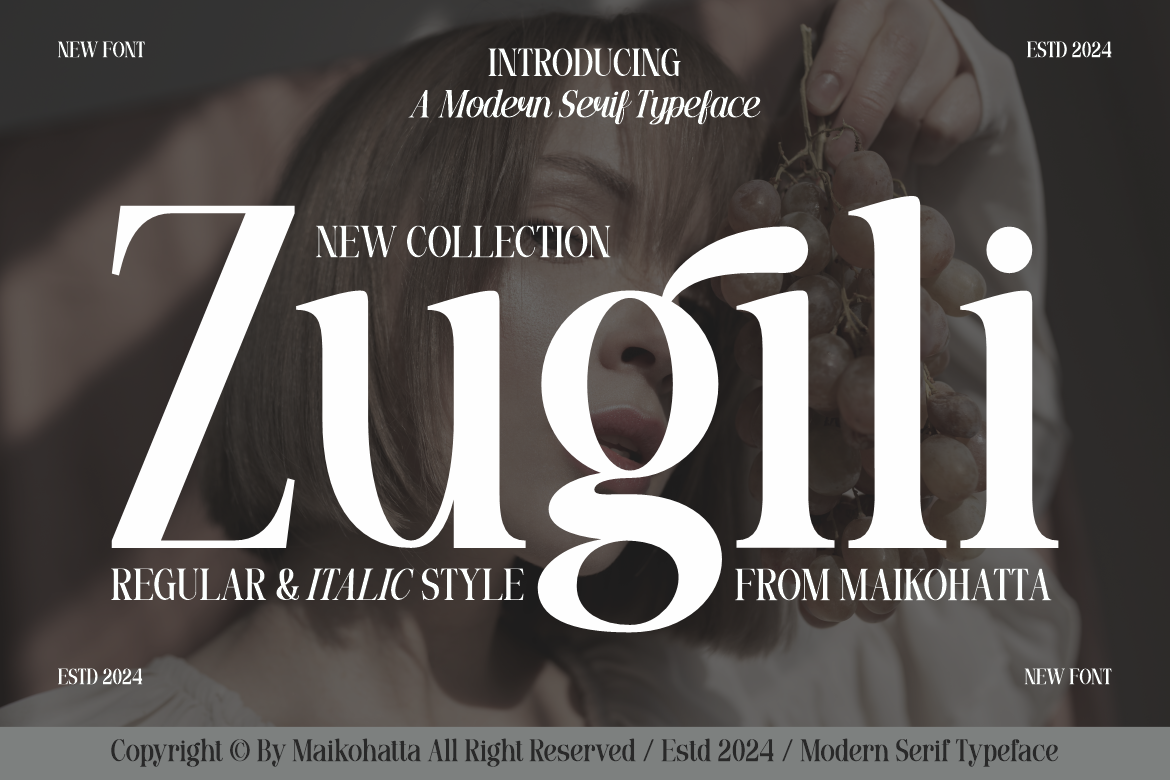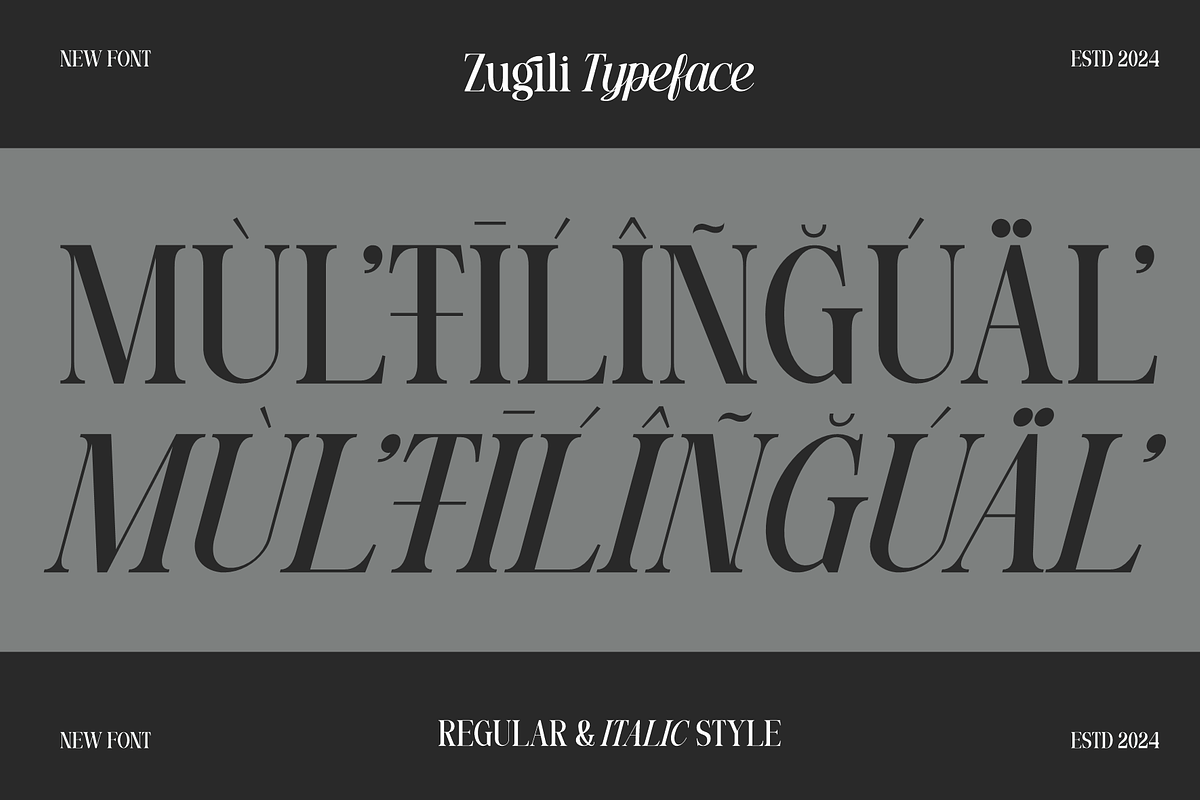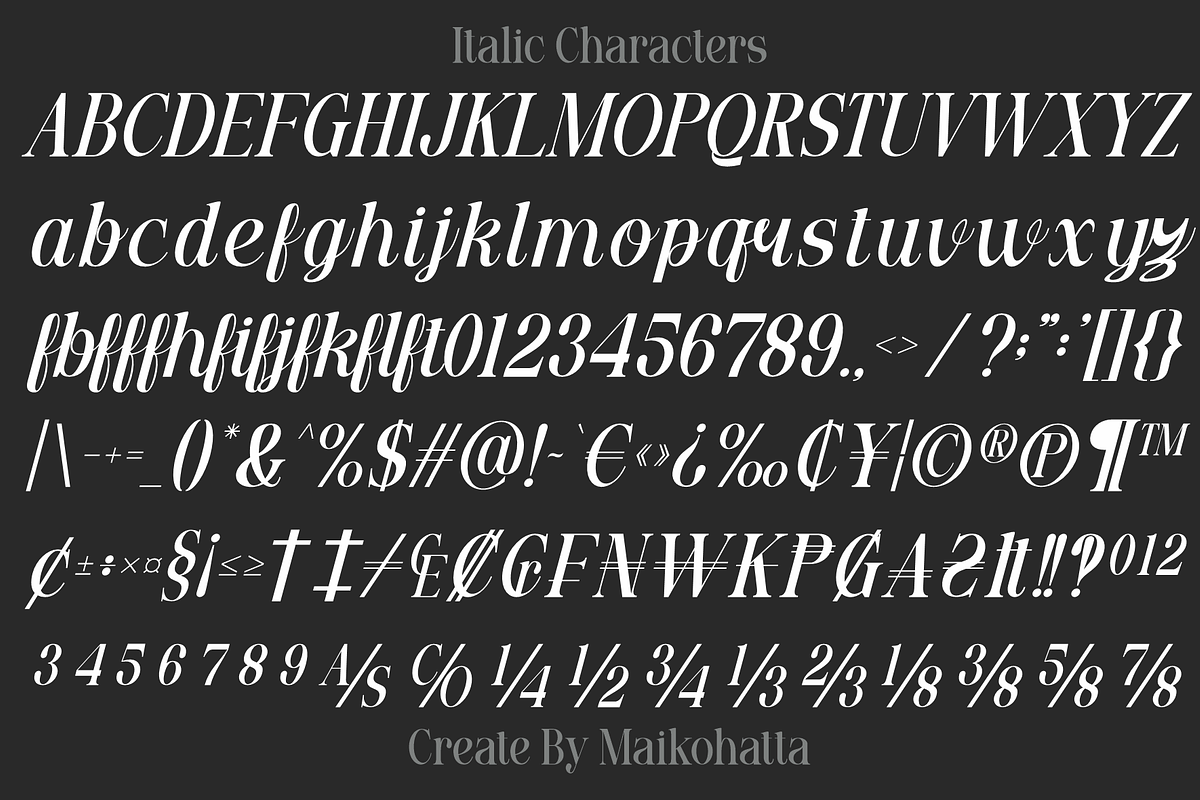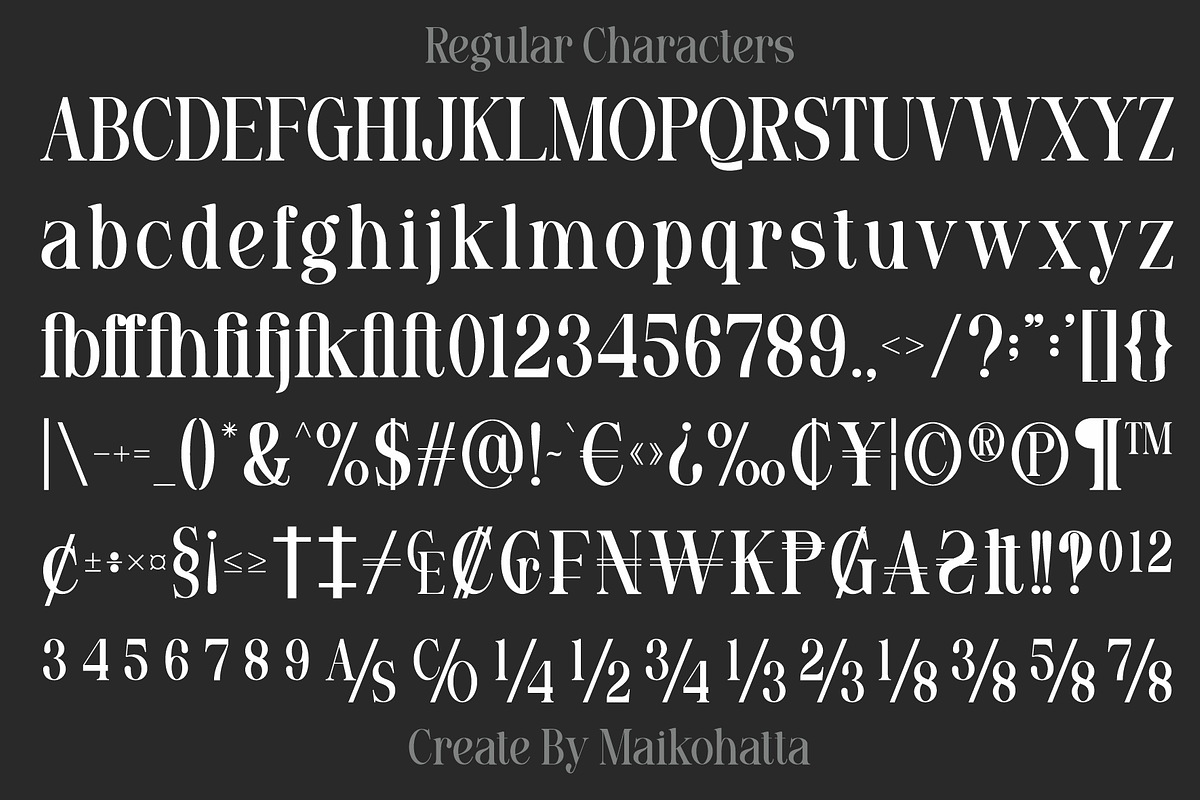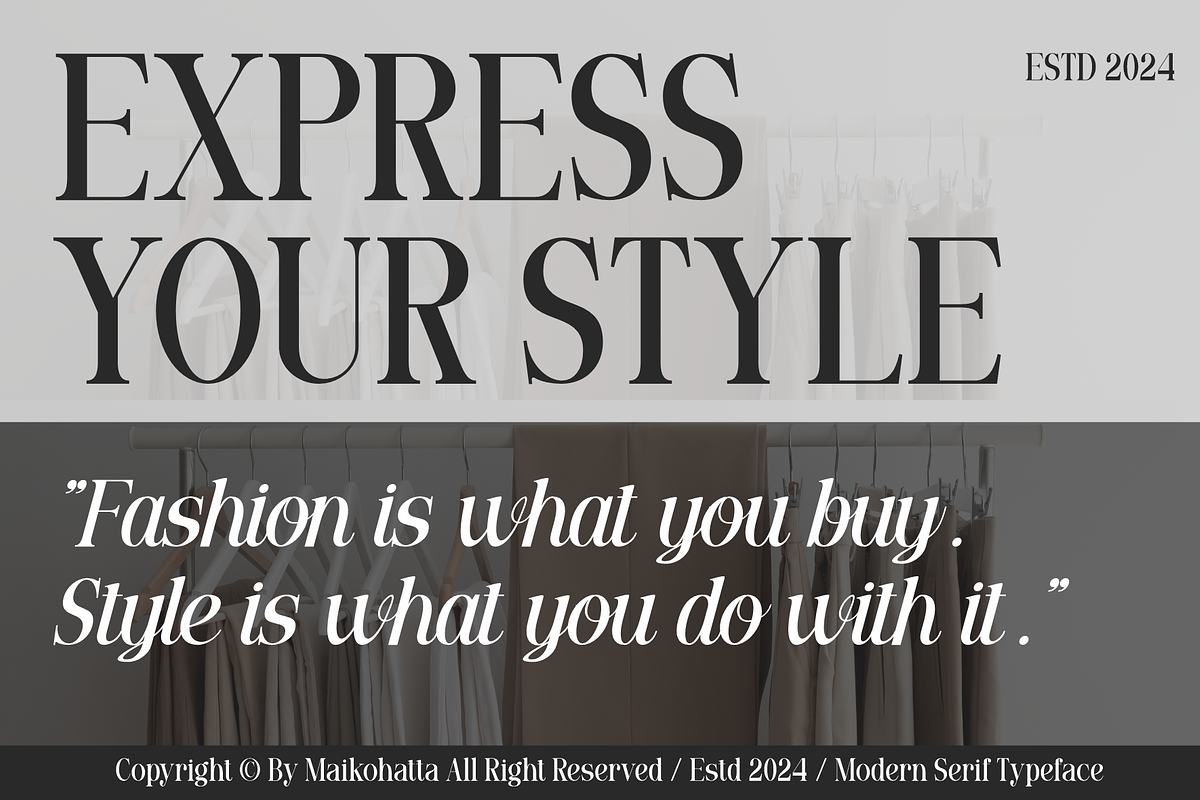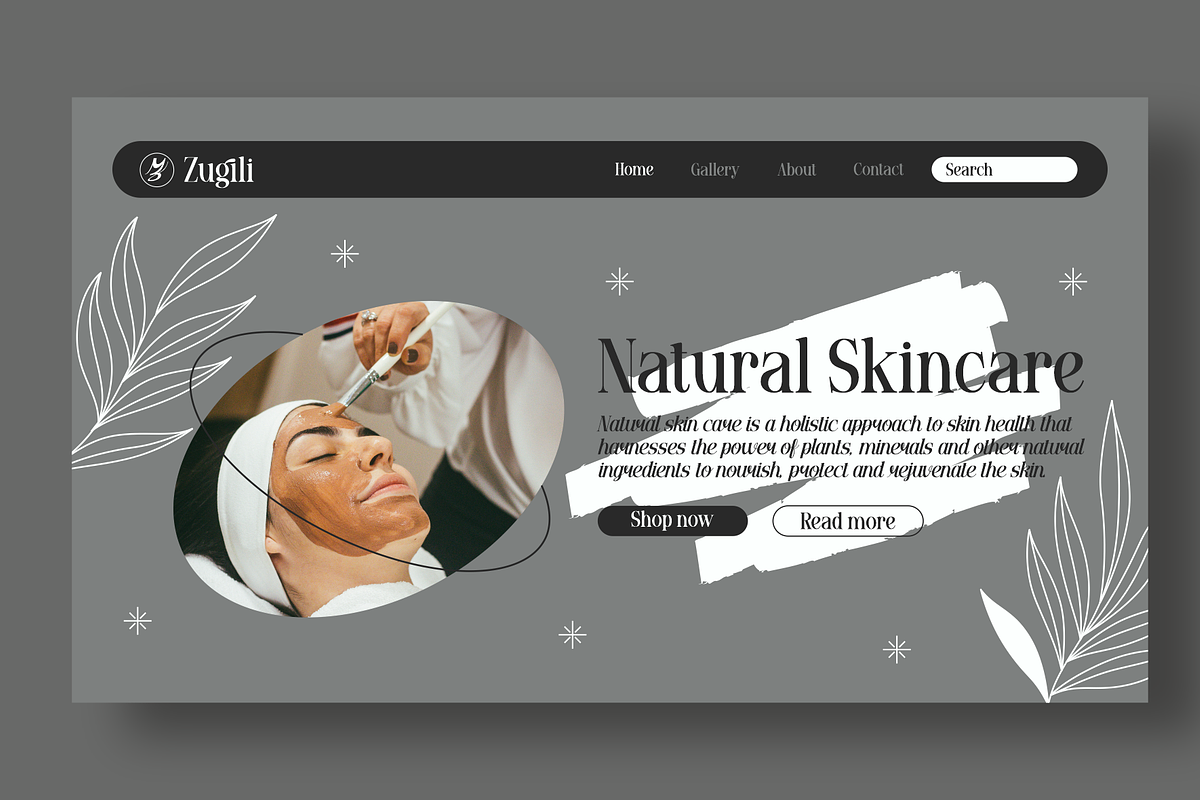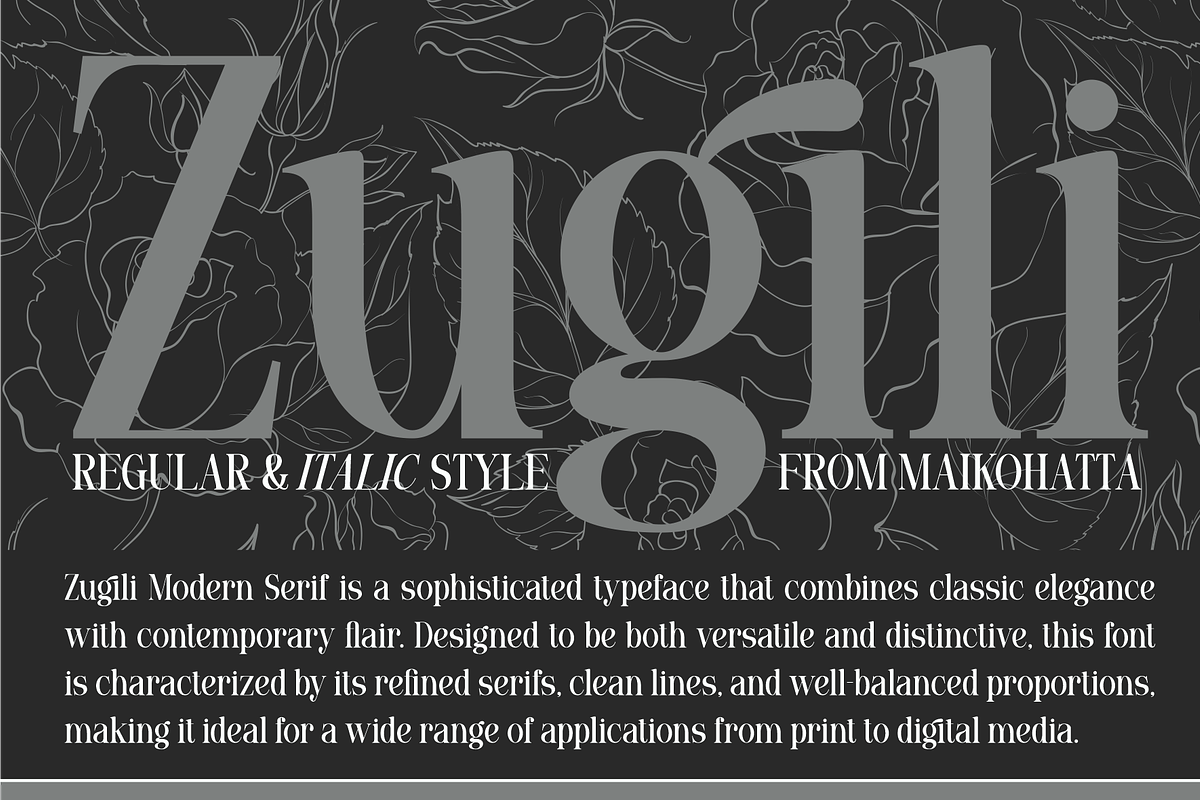
Zugili - Modern Serif Typeface
Introducing our new product Zugili - Modern Serif Typeface
This font features a balanced proportion of stroke thickness and fineness, creating attractive and easy-to-read visuals. This modern serif style is often characterized by a bold distinction between thick and thin lines, providing a touch that is understated but still stands out.
- Ligatute
Style Font
- Italic